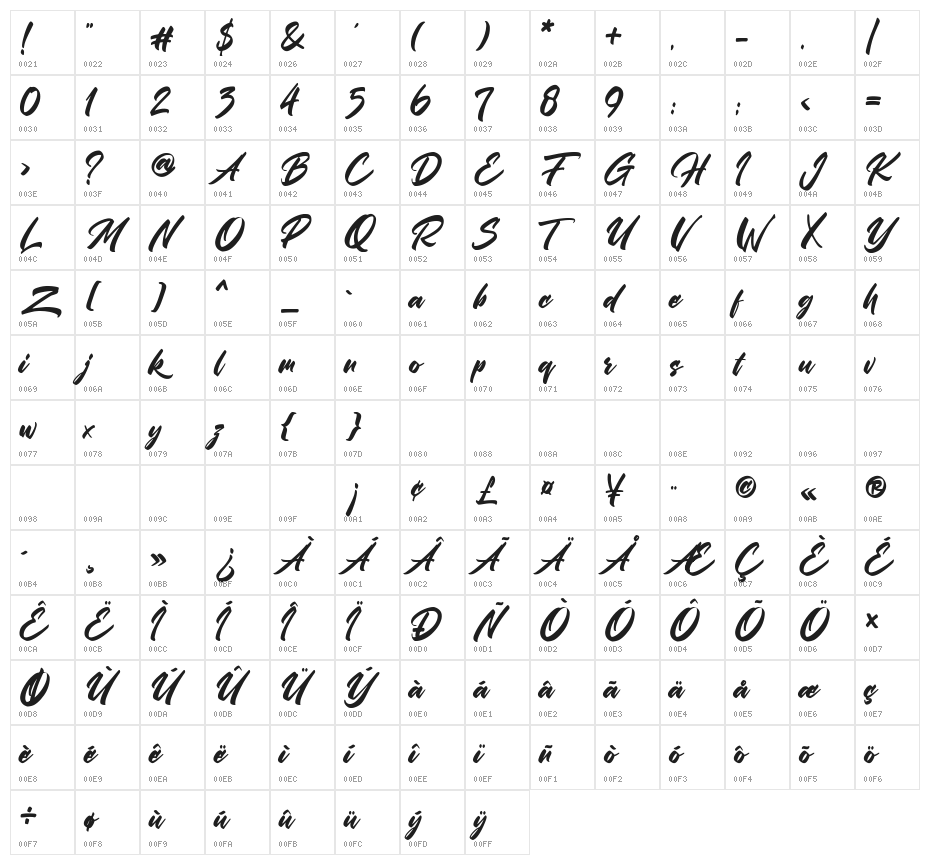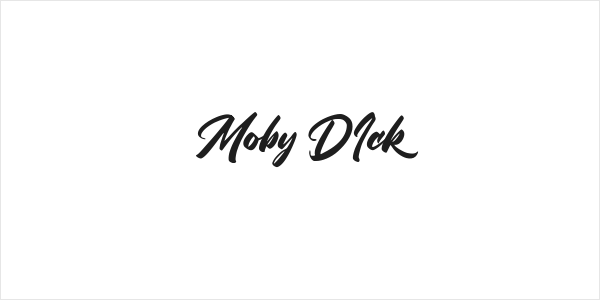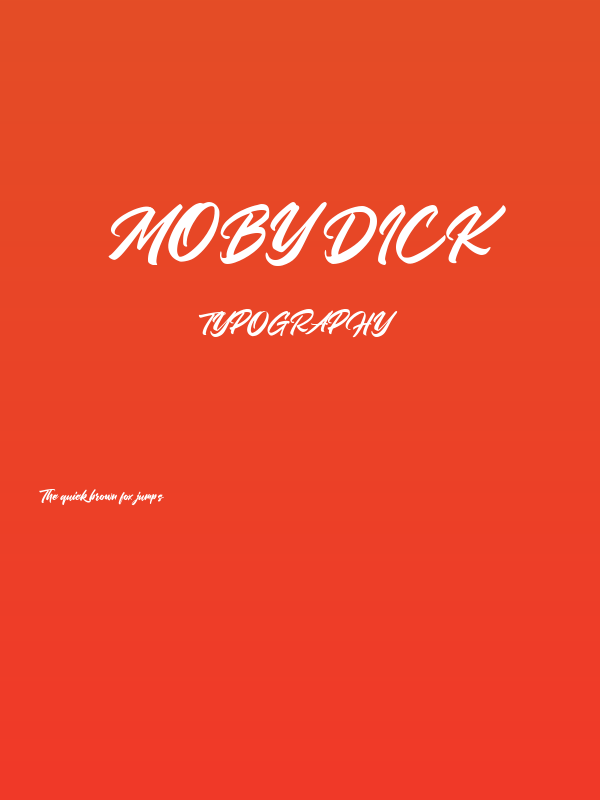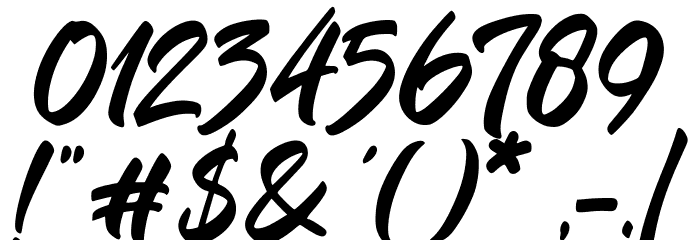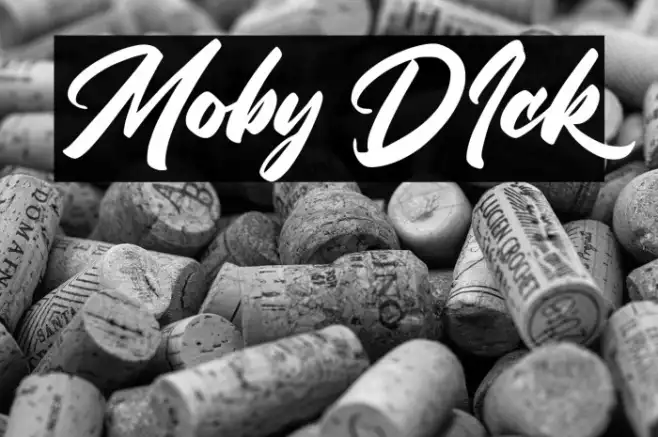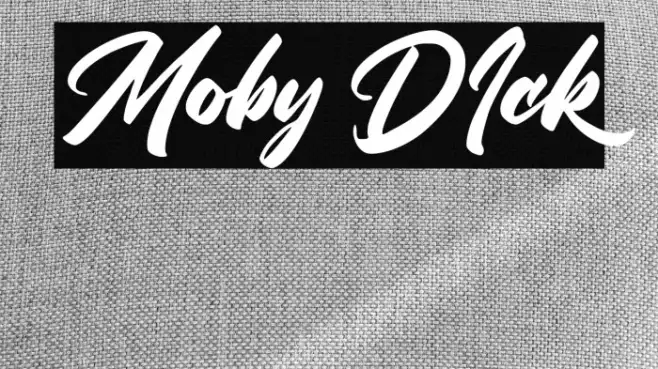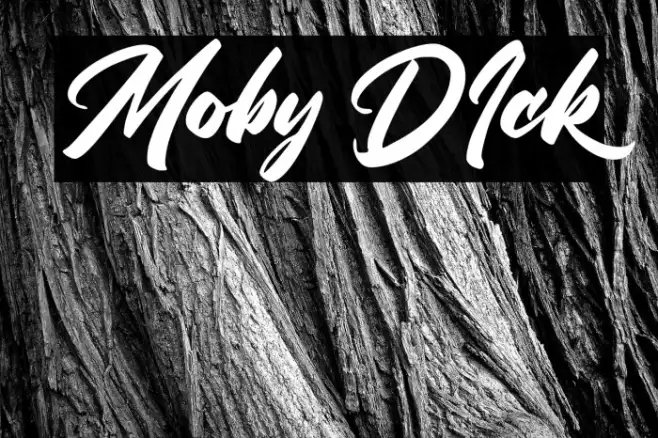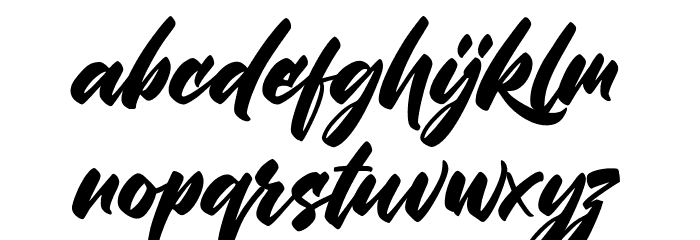
Moby DIck Font
Moby DIck Description
This font features a bold, expressive script style with a dynamic and fluid appearance. The characters are connected, giving it a handwritten feel, yet they maintain a consistent thickness throughout. The uppercase letters are slightly larger and more pronounced, while the lowercase letters are elegantly curved, adding to the overall flow. The numerals are equally bold and maintain the same stylistic flair as the letters. Special characters are included, matching the font's energetic and lively aesthetic. This font is perfect for projects that require a personal touch or a sense of movement and creativity.
MOBY-DICK UPPERCASE
MOBY-DICK LOWERCASE
MOBY-DICK OTHER CHARS